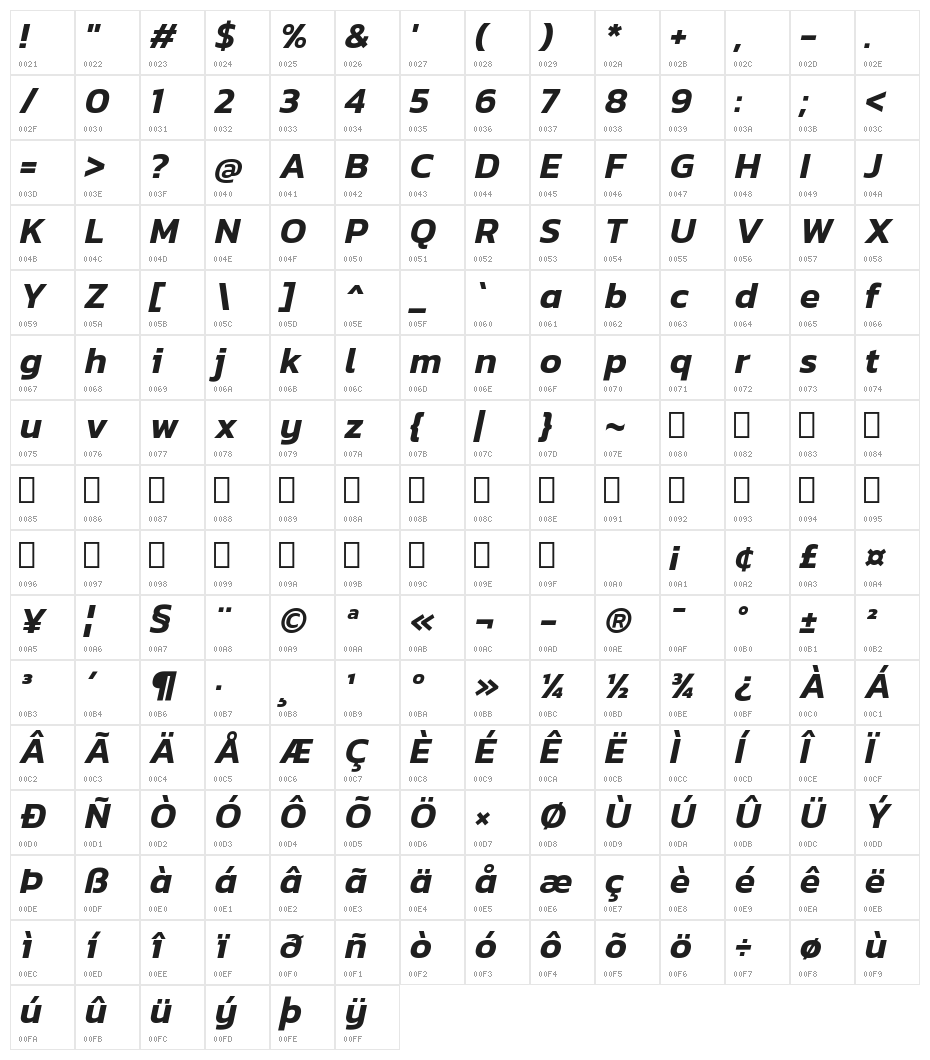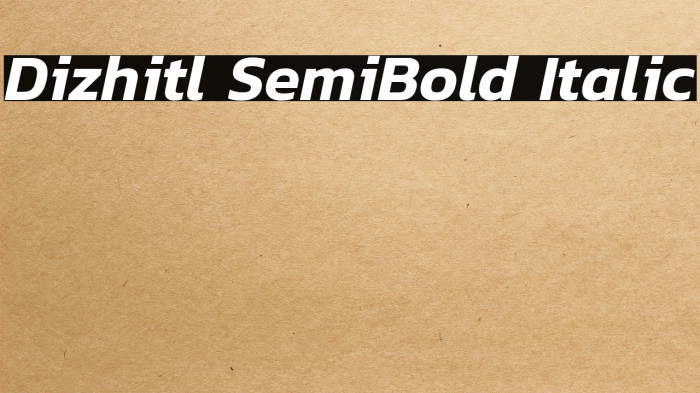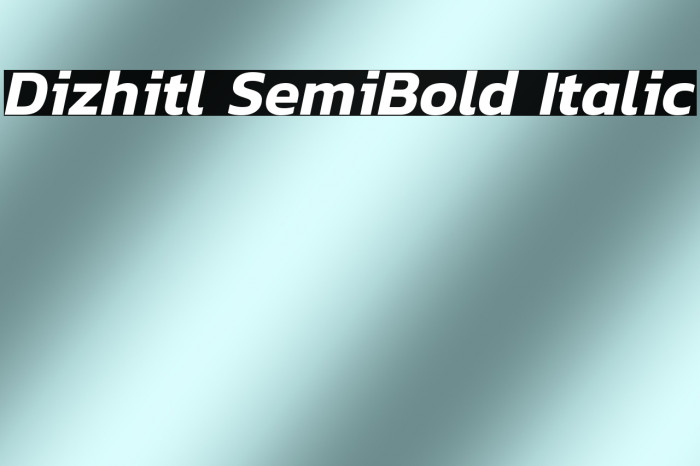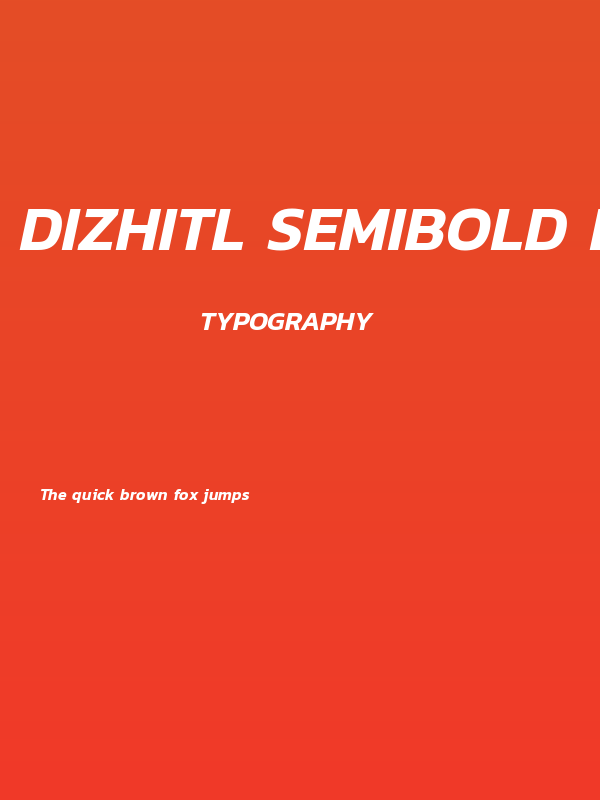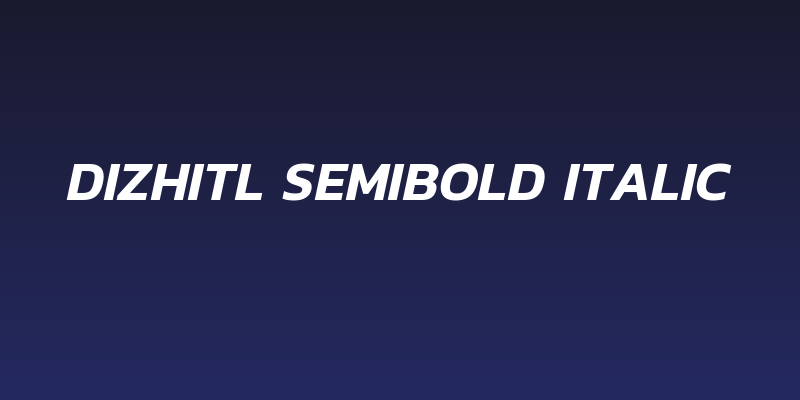
Dizhitl SemiBold Italic Font
Dizhitl SemiBold Italic Description
This font features a modern, sleek design with a semi-bold weight and italic style. The characters are slightly condensed, giving it a compact appearance while maintaining readability. The strokes are consistent, with medium contrast, providing a balanced look. The uppercase letters are bold and assertive, while the lowercase letters maintain a smooth flow. The numerals are clear and distinct, making them easily legible. Special characters are well-defined, adding versatility to the font's usage.
Use CaseHeadlines, Logos, Branding
Proposed ProjectsIdeal for branding projects, headlines, and modern web design, this font can also be used in advertising materials and digital content where a contemporary look is desired.